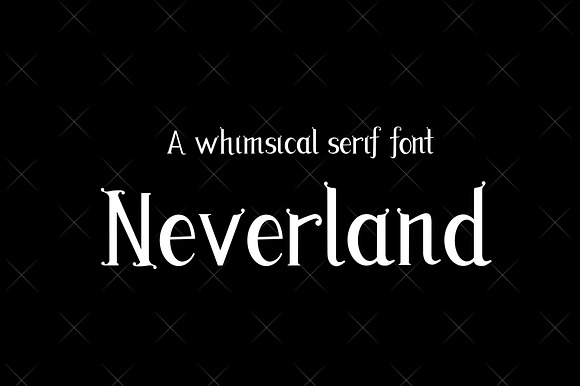
Neverland Whimsical Font
A simple font that adds a touch of whimsy. Inspired by the wonderful world of Peter Pan’s Neverland.
Why Neverland Whimsical Font is worth a look
Neverland Whimsical Font by JennGravissFults Creates fits naturally into Branding, posters, packaging, typography.